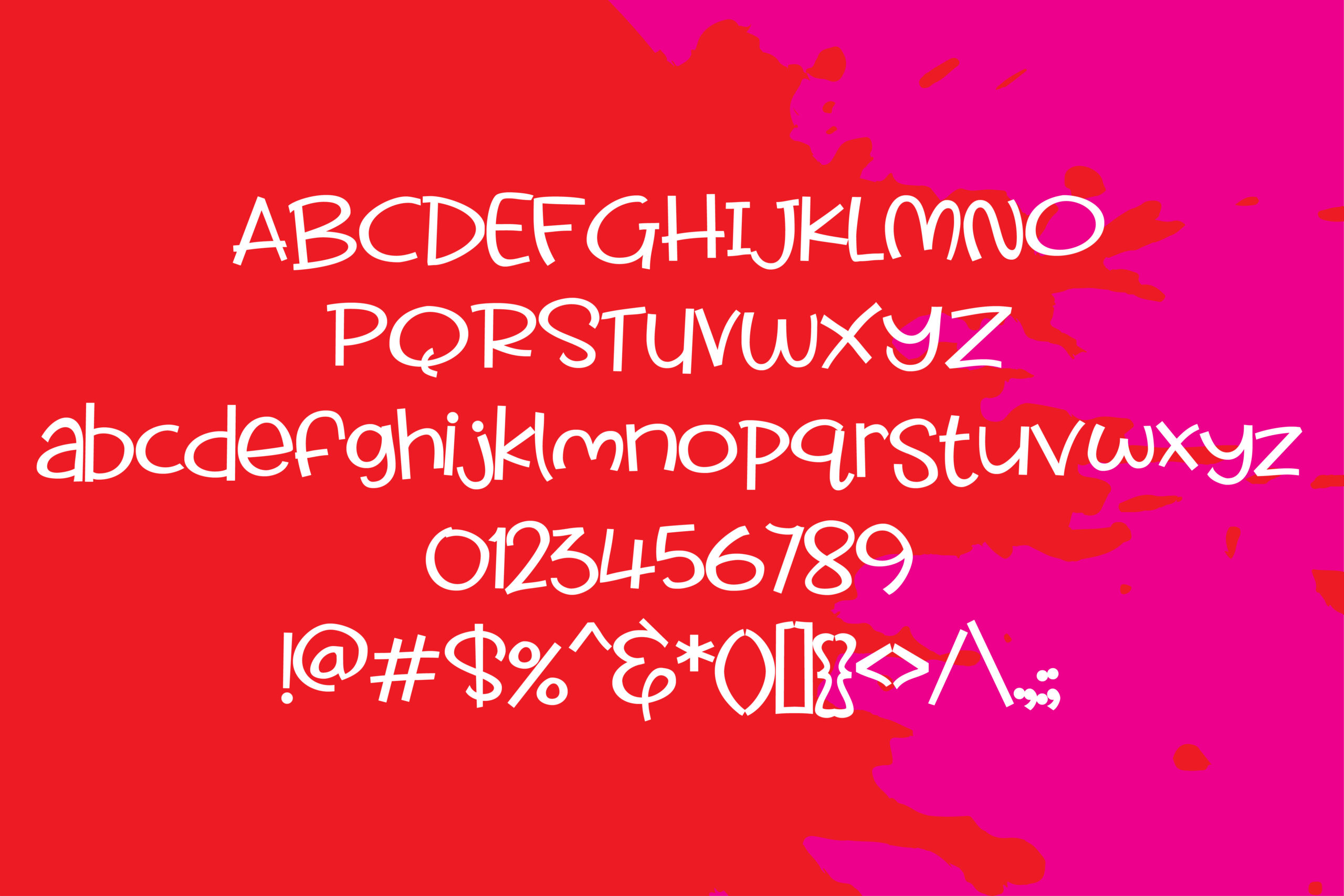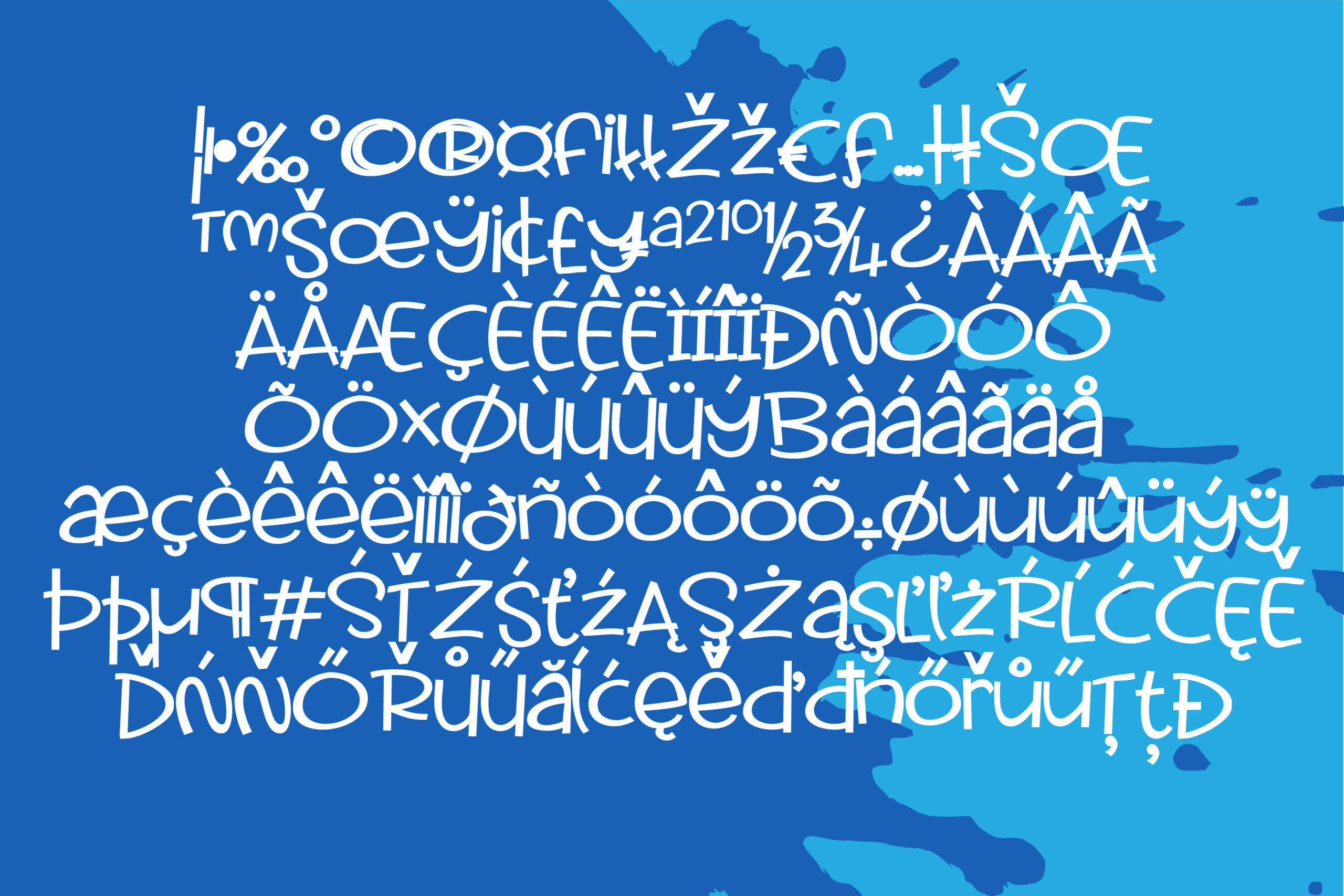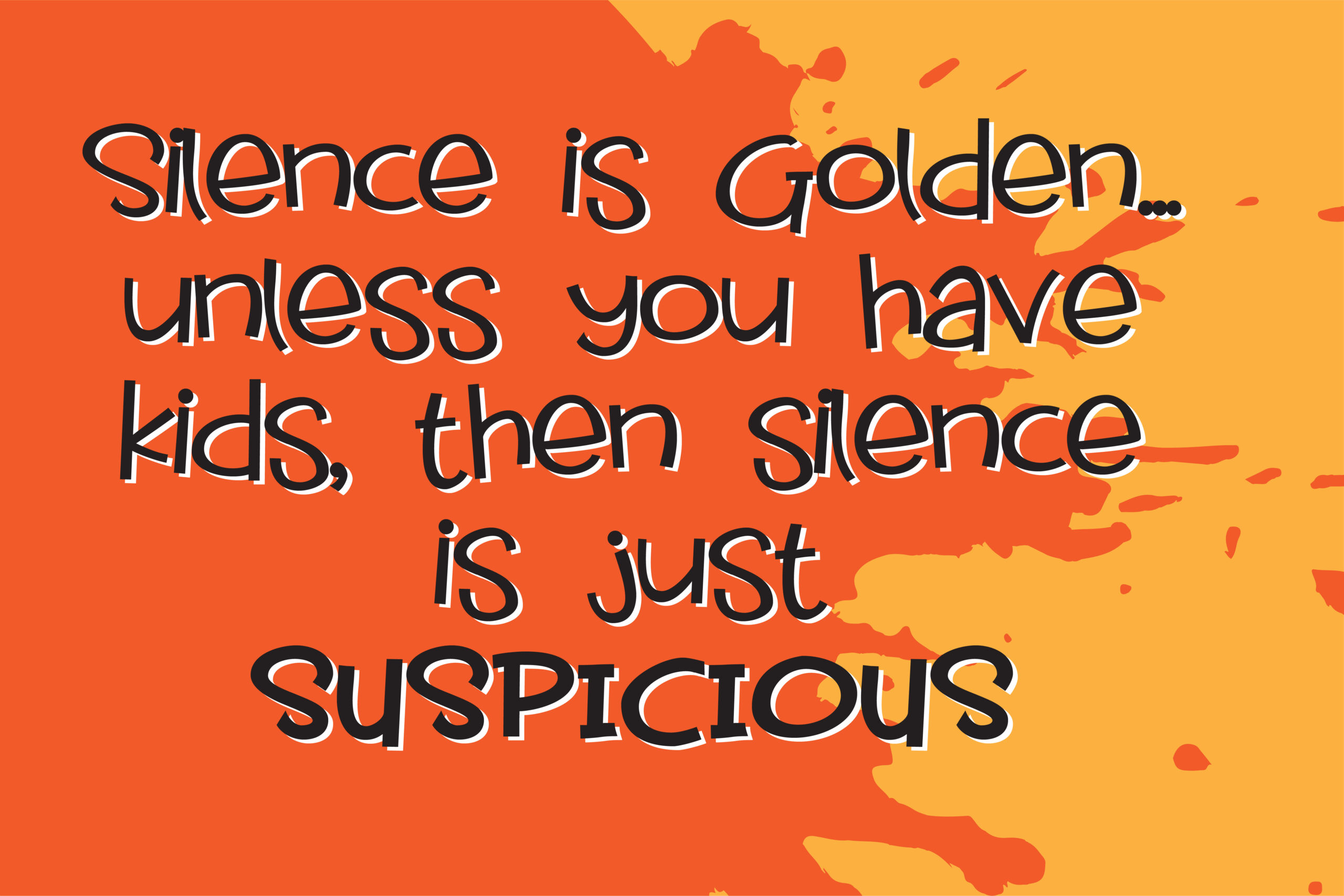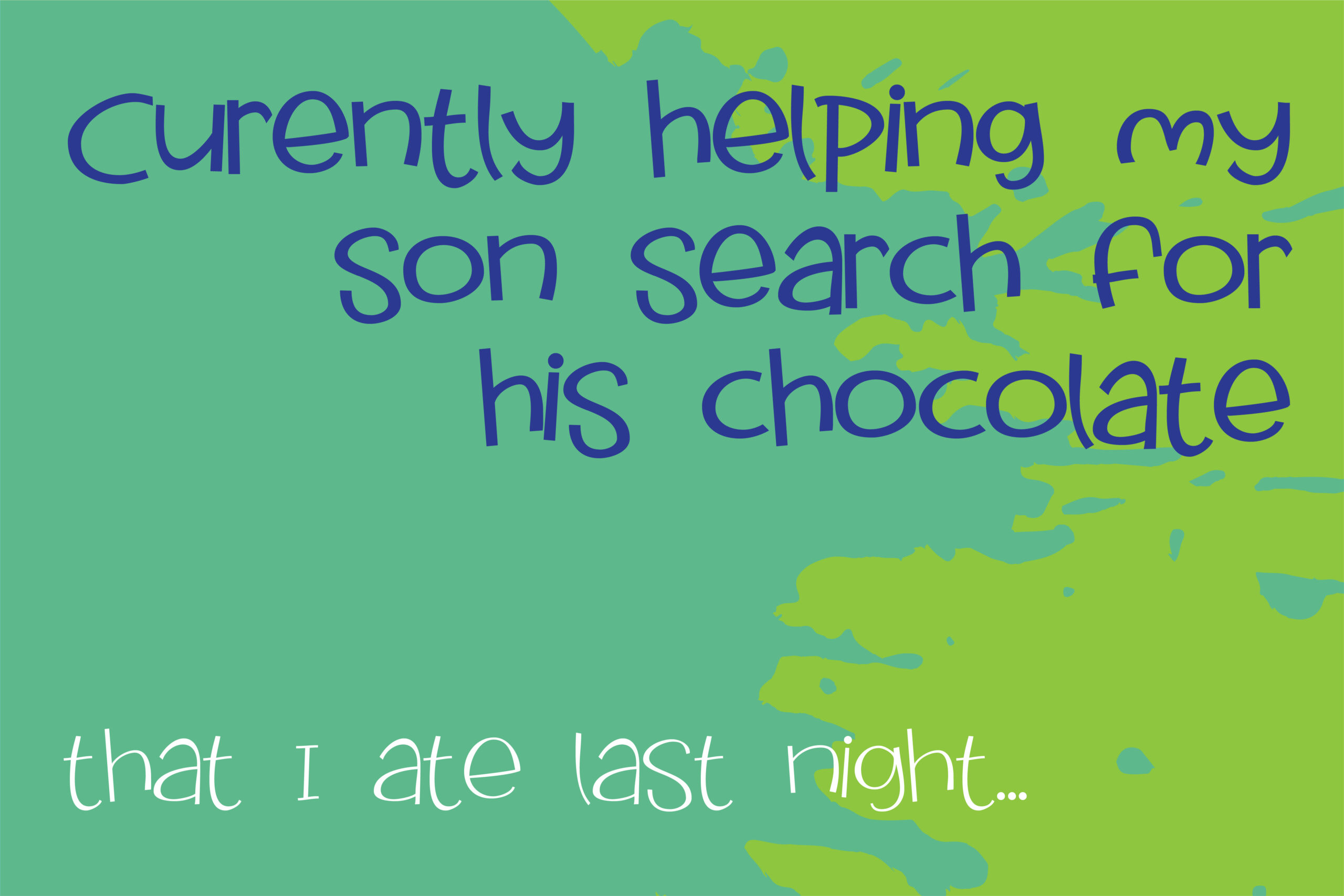
Fidgety Font
About Fidgety Font
Fidgety is a hand-crafted font that has a youthful feel and is a great way to add a bit of childish glee to any project! This legible handwritten font comes in a clean, sans serif feel.